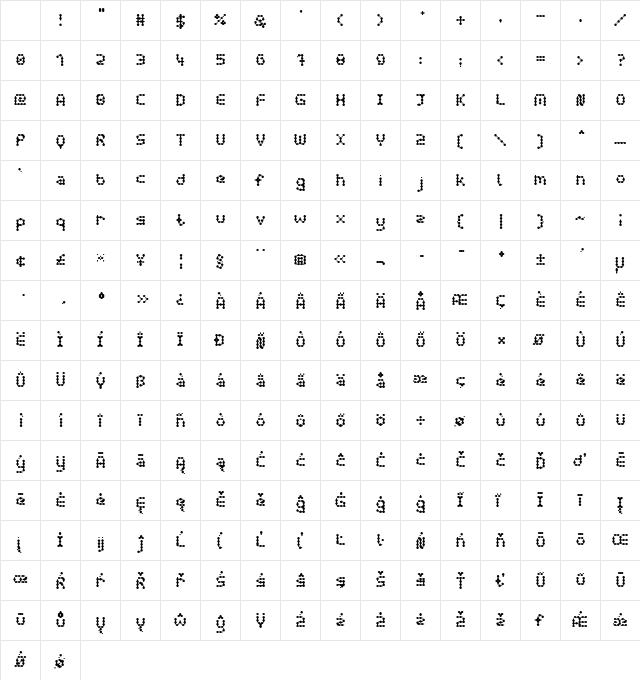
Complete curly lava bubble Regular glyph index. Displaying only characters natively supported by curly lava bubble Regular font.
curly lava bubble has an approachable, lighthearted character - its loose, expressive forms are well-suited to children's content, casual branding, and fun-first design.
Font Pairing: Pairs well with a rounded or humanist sans for body copy, maintaining the friendly tone without relying on curly lava bubble to carry extended reading.
Pro Tip: Use curly lava bubble at larger display sizes where its expressive character can land. Pair with a clean, simple sans for body copy to maintain readability.